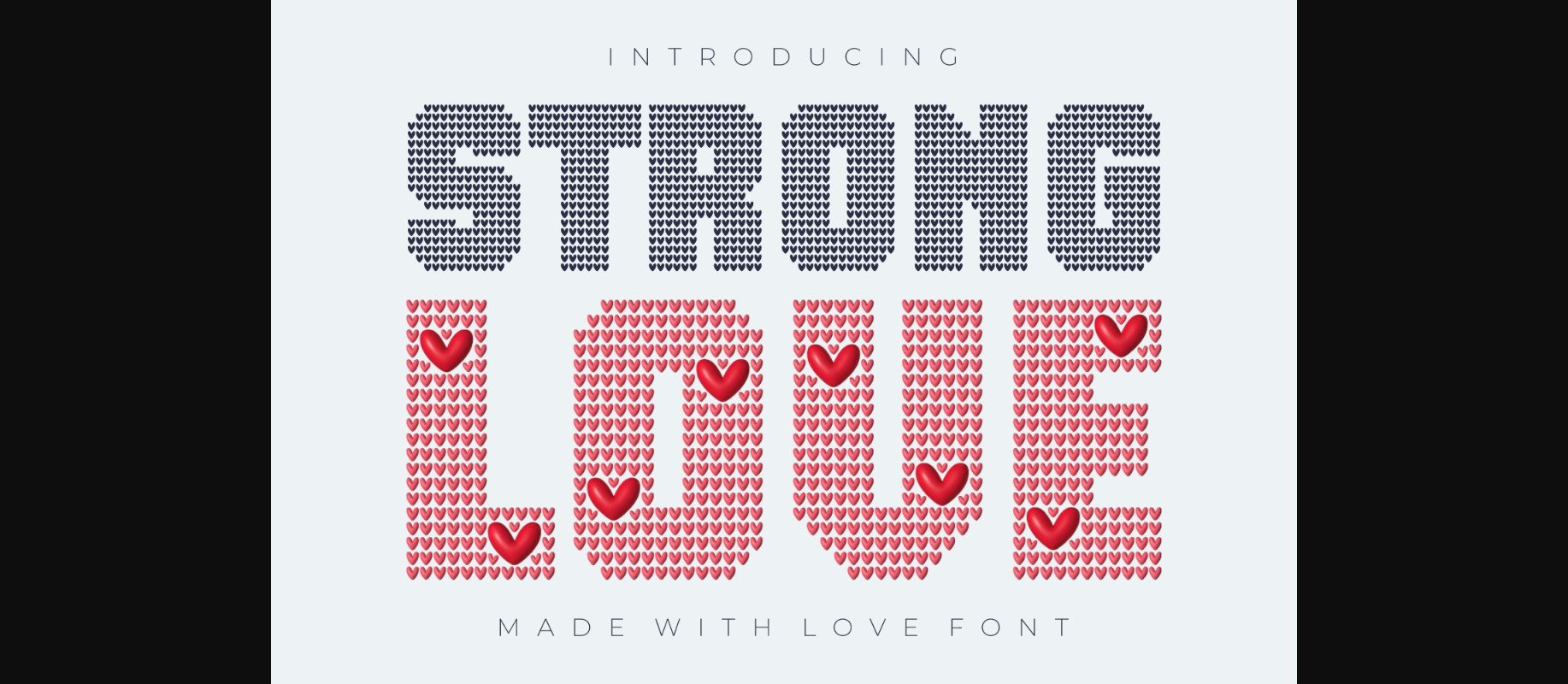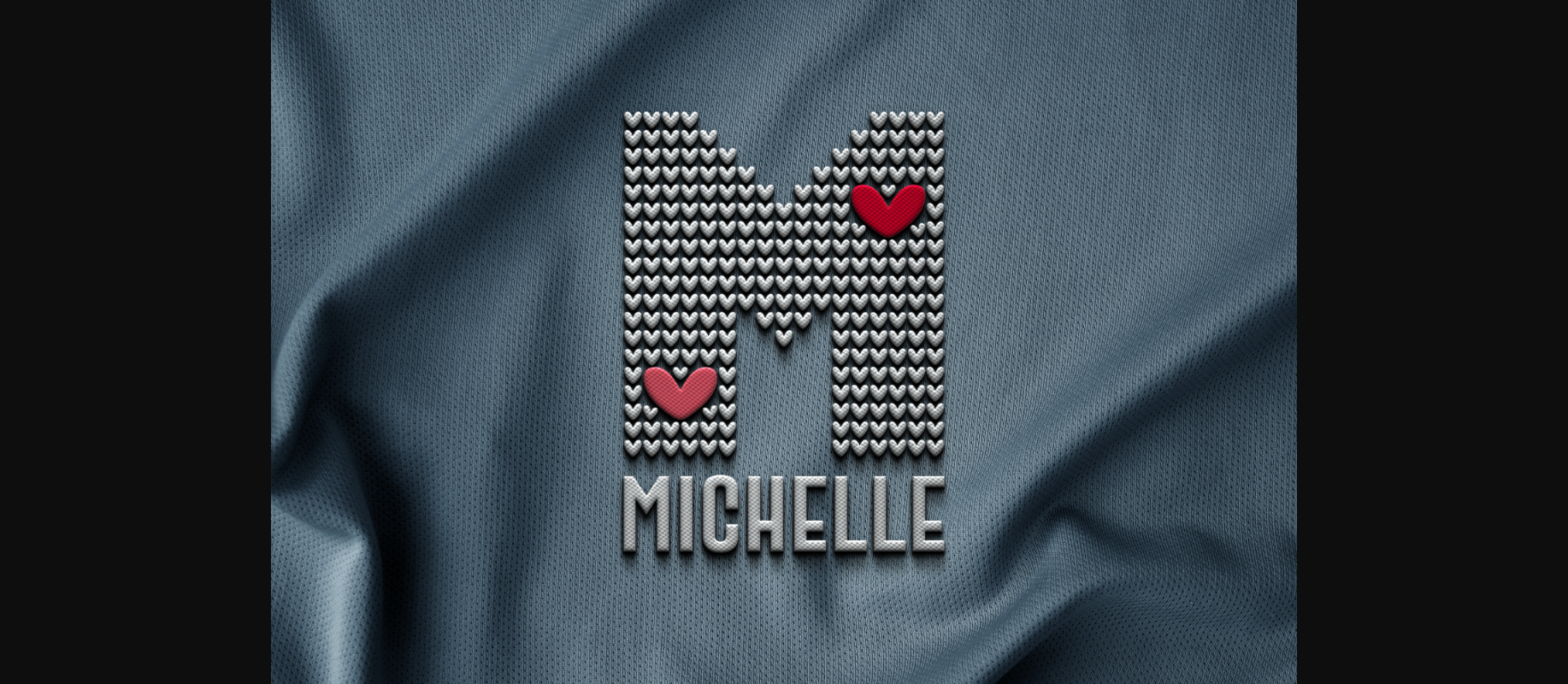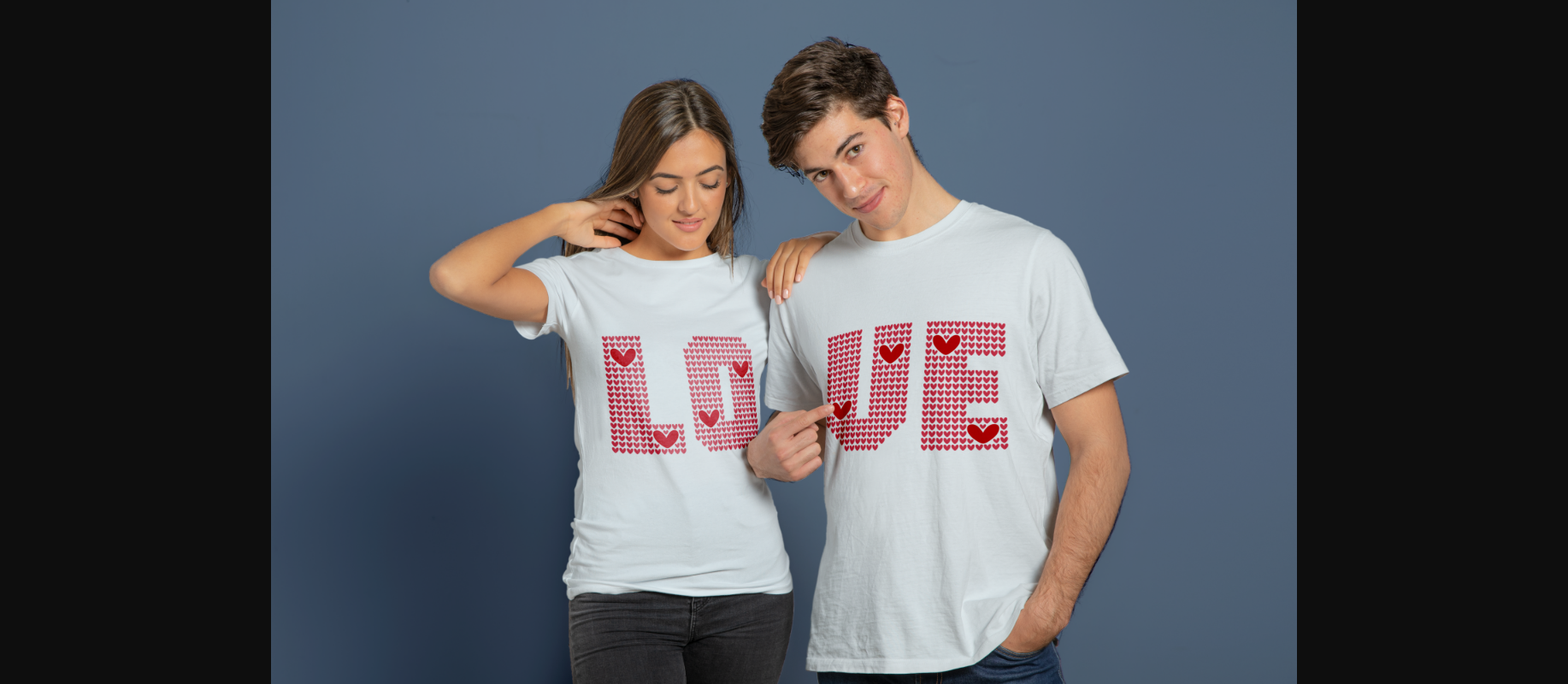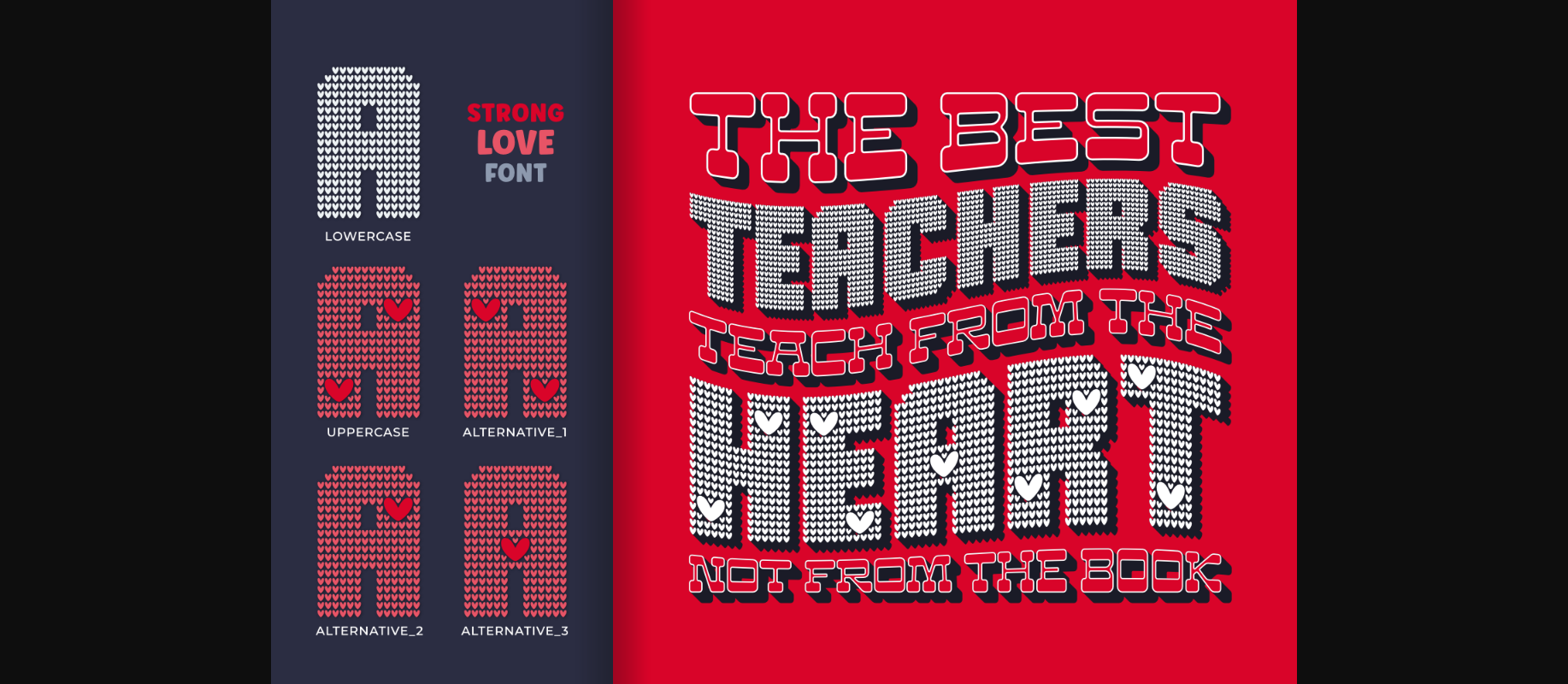
About Strong Love Font
Strong Love is a captivating decorative font that turns letters into a visual celebration of hearts. Each letter is crafted from delicate lines of love, creating a charming and affectionate touch to your text. Ideal for expressing emotions with flair, this font brings a sweet and decorative element to any project. Whether for heartfelt messages, cards, or romantic designs, Strong Love infuses your words with a warm and loving aesthetic, making every expression a celebration of affection.